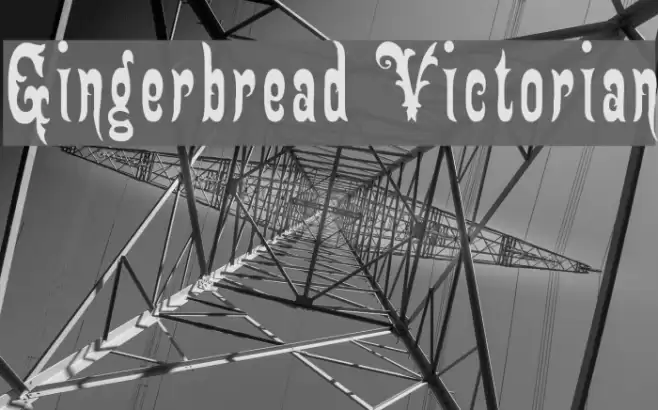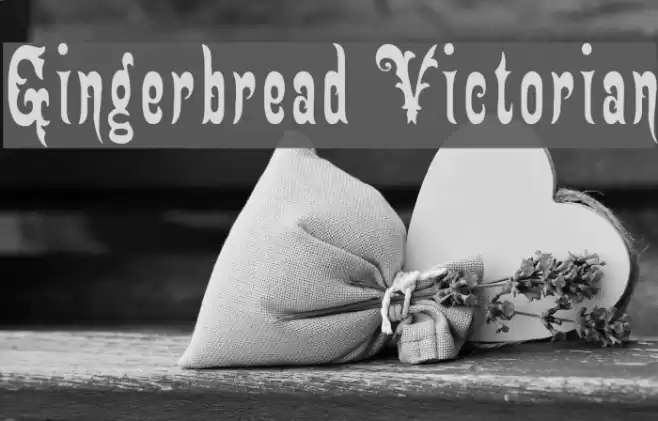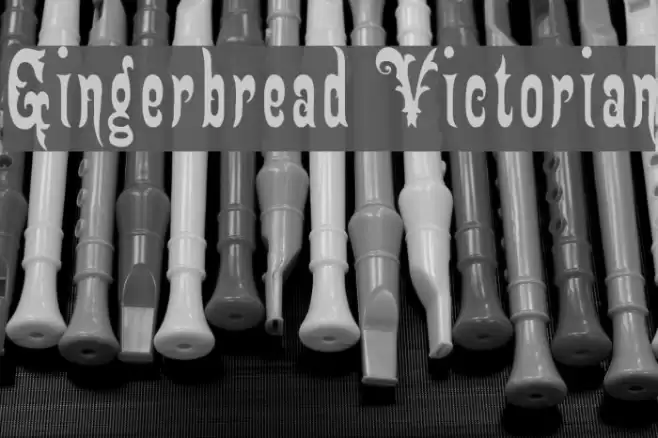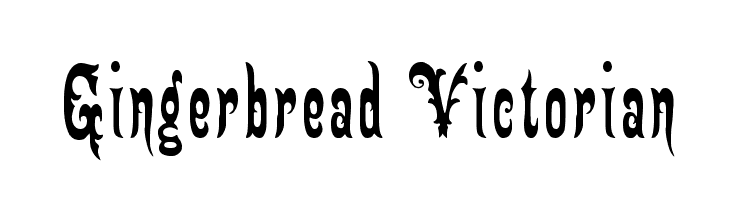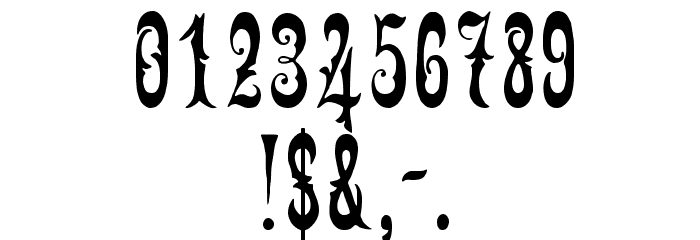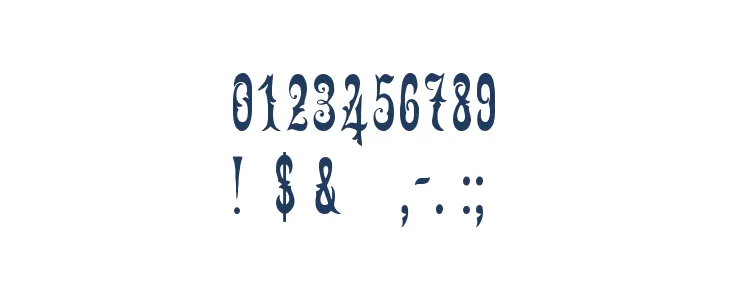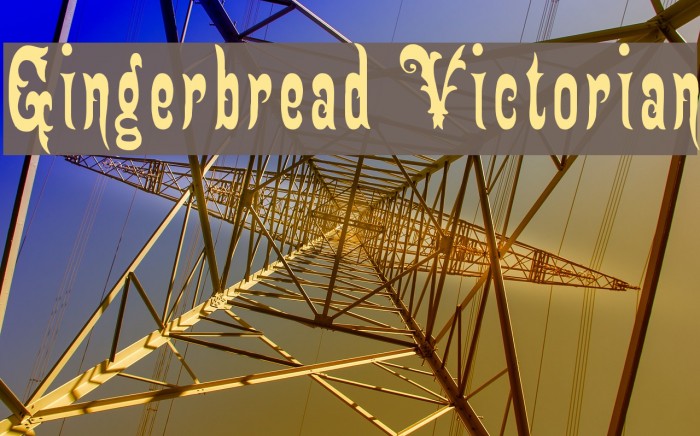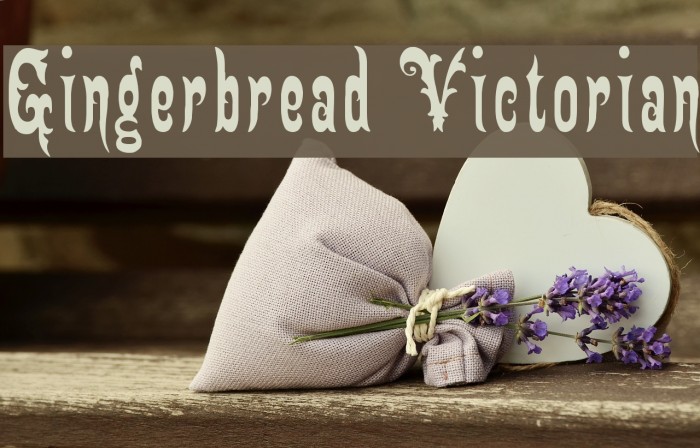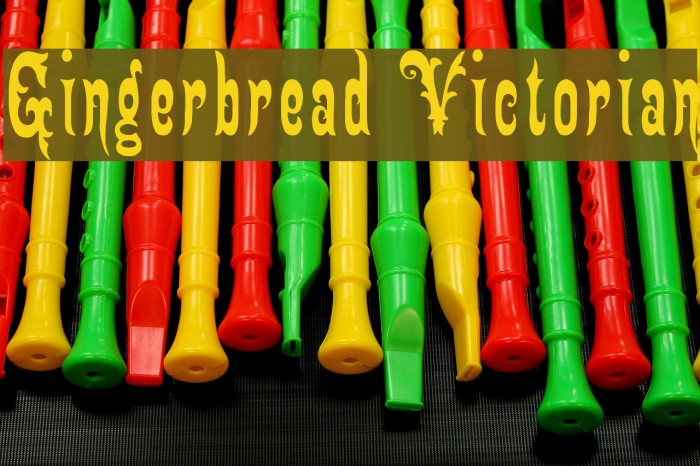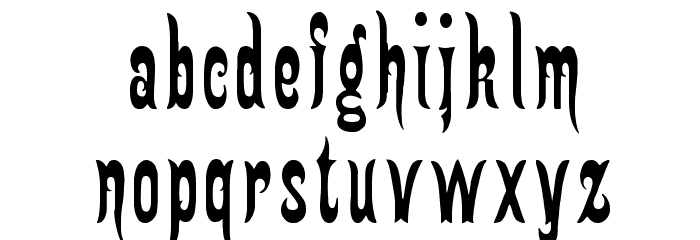
Gingerbread Victorian Font
Gingerbread Victorian Description
This font features an ornate and decorative style, reminiscent of Victorian-era design. The characters are embellished with intricate flourishes and curves, giving them a whimsical and elaborate appearance. The uppercase letters are particularly striking, with bold, sweeping lines and detailed embellishments that evoke a sense of grandeur and elegance. The lowercase letters, while still decorative, are slightly more subdued, maintaining readability while complementing the ornate uppercase. The numbers and special characters follow the same decorative theme, ensuring a cohesive look across all glyphs. This font is ideal for projects that require a touch of vintage charm and sophistication.
An ornate, Victorian-inspired decorative font with intricate flourishes from Uncategorized fonts.
- Font: Gingerbread Victorian
- Proposed Projects: Ideal for vintage-themed invitations, posters, branding, and decorative headlines.
- Overall Style: Vintage
- Use Case: Headlines, Logos, Decorative text